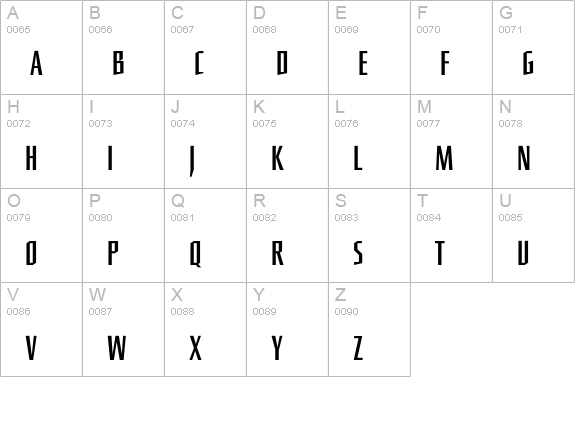
Primary-Bold is a strong, high-contrast variant in the Primary typeface family \xE2\x80\x94 well suited to headlines, attention-grabbing titles, and strong calls-to-action.
Introducing Primary-Bold, a striking and versatile font that exudes confidence and authority. With its bold and impactful design, this font is perfect for making a statement and grabbing attention. The strong and modern look of Primary-Bold makes it ideal for a wide range of projects, from branding to editorial design. What's even better is that Primary-Bold is available for free download at FontsMarket.com. That's right, you can easily access this powerful font and enhance your projects without breaking the bank. Don't miss out on the opportunity to elevate your designs with the bold and dynamic Primary-Bold font - download it today and start creating impactful visuals that stand out from the crowd.